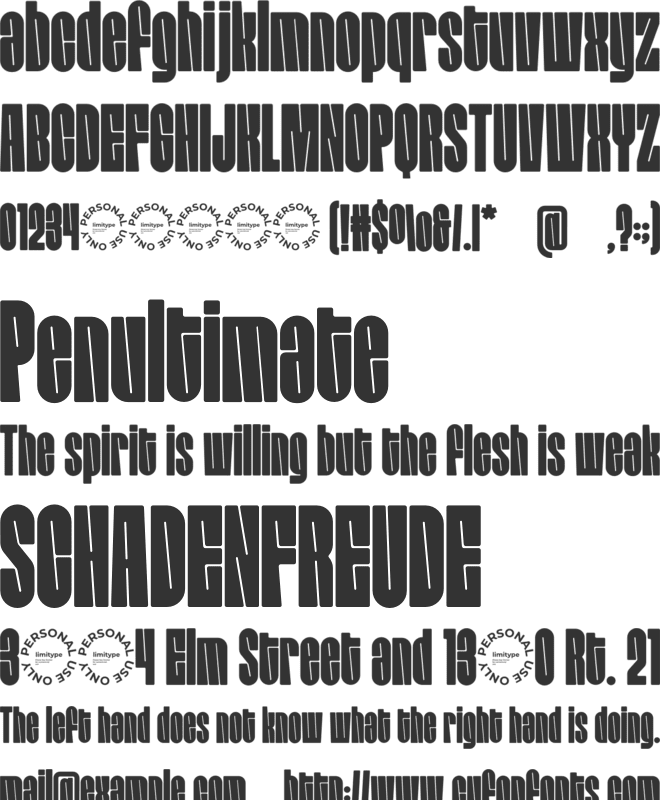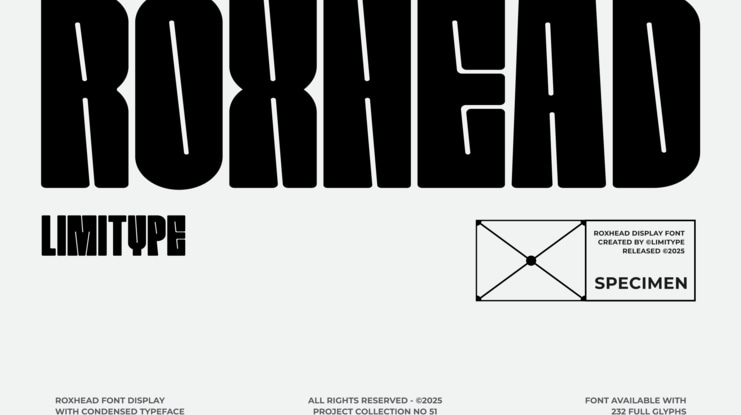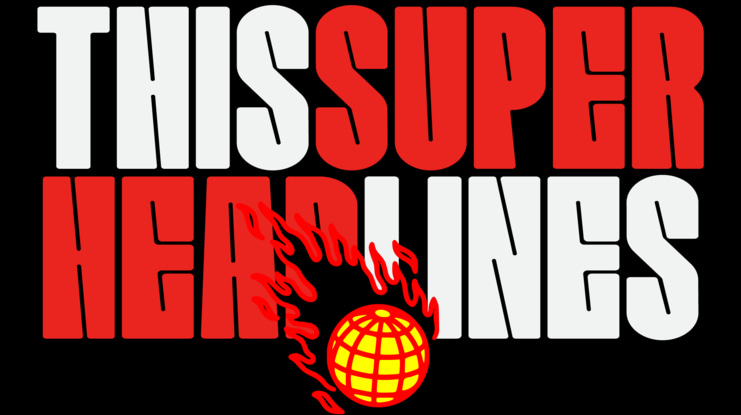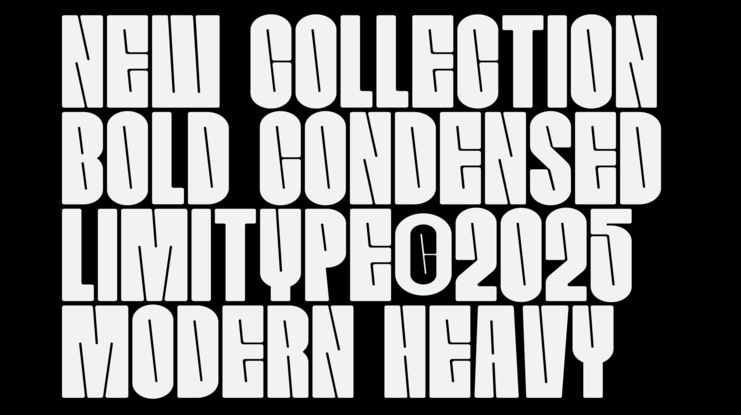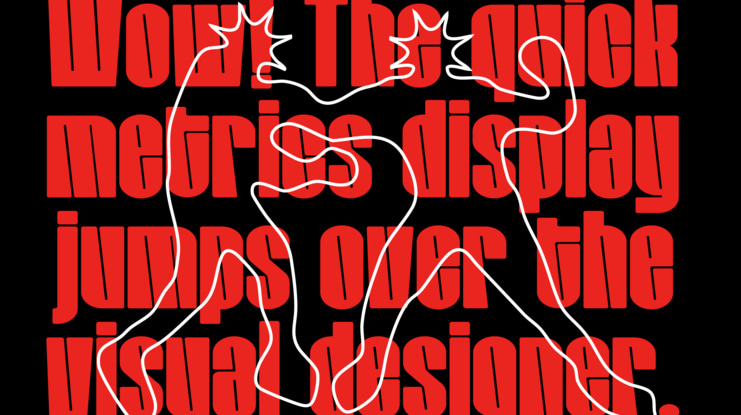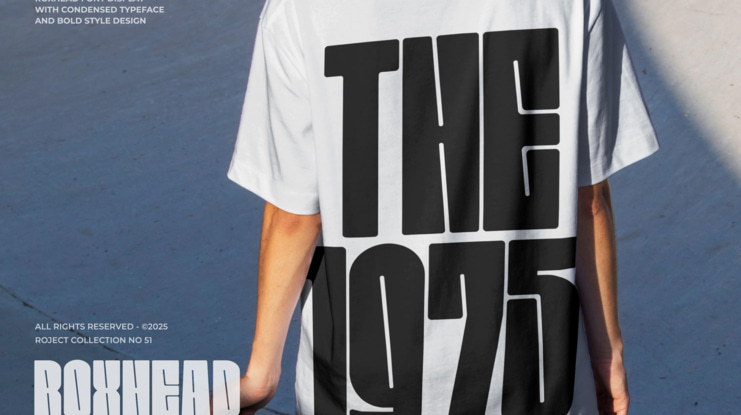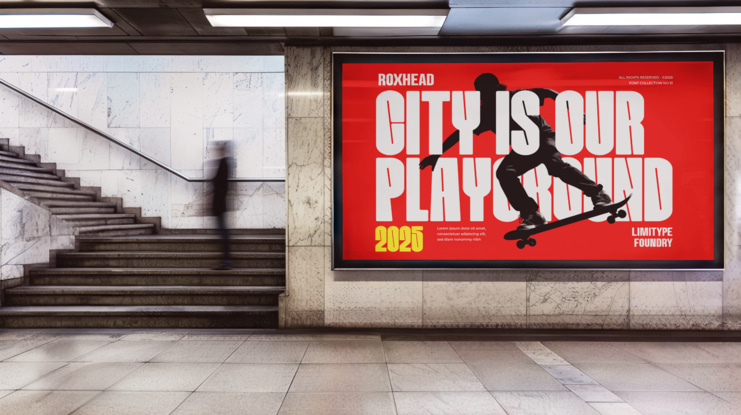
Roxhead Condensed Font
Roxhead is a modern urban font with a condensed style and small counter details. Perfectly suited for headlines, posters, magazines, and merchandise that aim to appear modern and urban inspired.